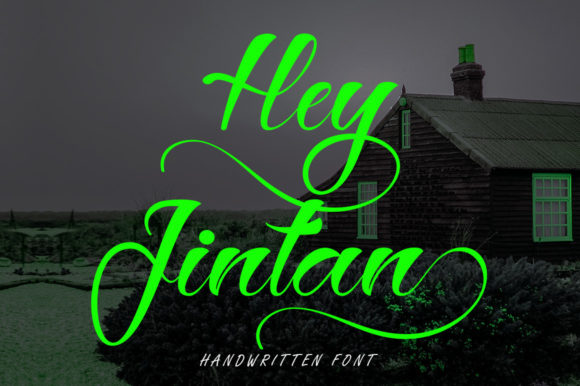
Dive into the world of elegance and sophistication with Hey Jintan, a captivating script font that exudes creativity and charm. Designed to inspire and empower, Hey Jintan is the perfect font for those seeking a touch of luxury and grace.
Crafted with the utmost precision and attention to detail, Hey Jintan embodies the essence of timeless beauty. Its flowing curves and intricate details create a visually stunning effect that elevates your designs to new heights. Whether you're creating logos, branding, invitations, stationery, wedding designs, or social media posts, Hey Jintan adds a touch of elegance and sophistication that leaves a lasting impression.
Let Hey Jintan be your creative guide as you embark on a journey of artistic expression. Its versatile nature allows you to effortlessly blend it with various design elements, creating harmonious compositions that speak to your audience. From classic and timeless to modern and dynamic, Hey Jintan seamlessly adapts to your unique vision, empowering you to craft designs that resonate with your target audience.
Experience the true power of typography as Hey Jintan transforms your words into captivating works of art. Every letter, every word, every line dances across the page with grace and fluidity, captivating your audience and leaving them in awe. Hey Jintan isn't just a font; it's an experience, an invitation to let your creativity soar and make a statement that speaks volumes.
So, embrace the beauty of Hey Jintan and watch your designs come alive with a touch of magic. With its timeless appeal and endless creative possibilities, Hey Jintan is the ultimate font for those who seek to leave a lasting impression.